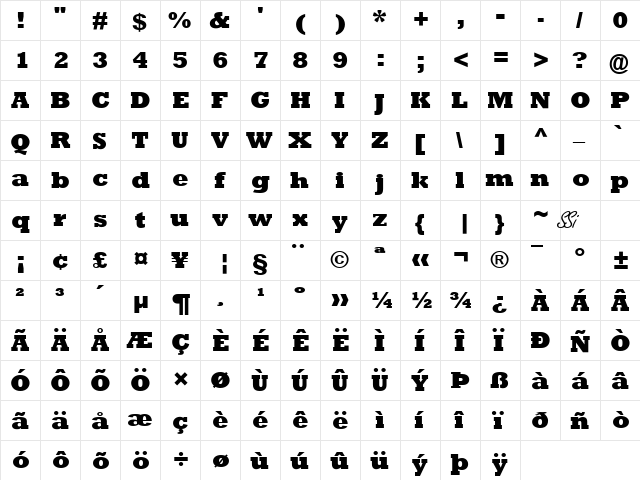
Astute Black SSi Extra Bold Font Preview
Astute Black SSi Extra Bold
Astute Black SSi Extra Bold Font Details
| Style | Extra Bold |
Design Context for Astute Black SSi Typeface
Astute Black SSi is a composed and adaptable typeface that performs quietly and consistently across a wide range of design contexts. The heavy weight commands attention and anchors typographic hierarchies.
Pro Tip: Use Astute Black SSi in both headline and body roles to test its range before committing to a single application.